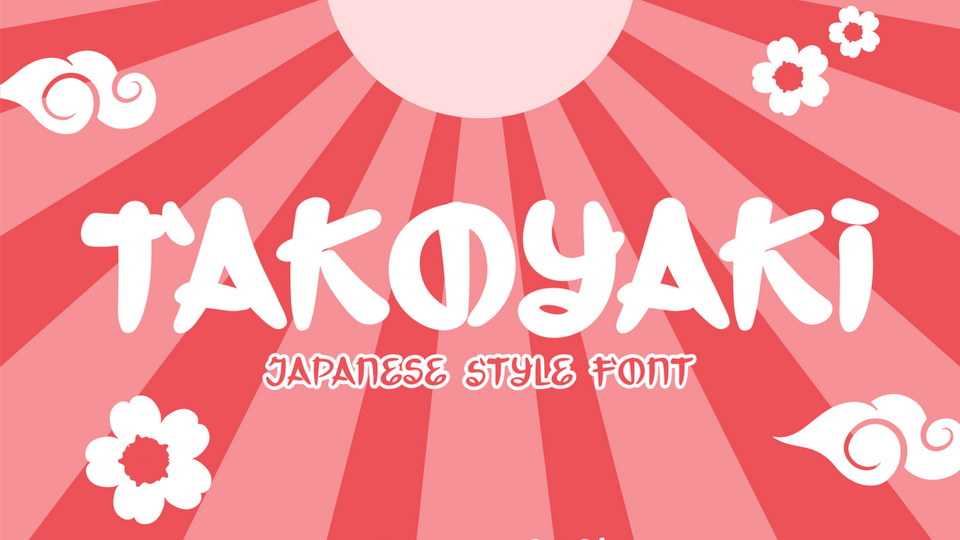
Download Takoyaki font, Japanese style font. Just like its name, Takoyaki brings the Japanese flavor, the smile, and a fresh and cheerful attitude towards the audience.